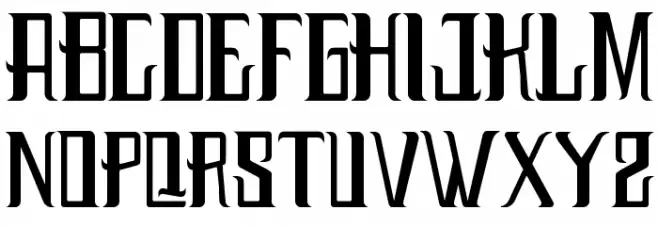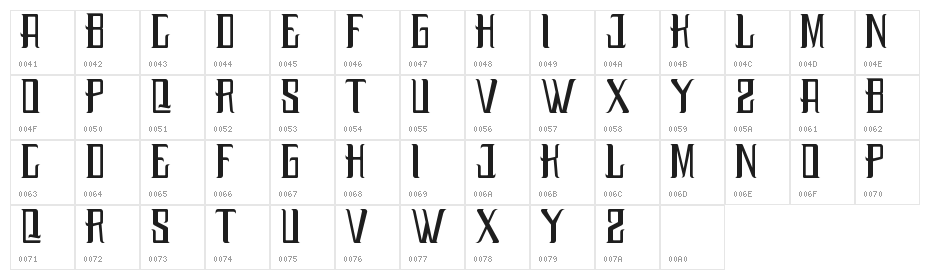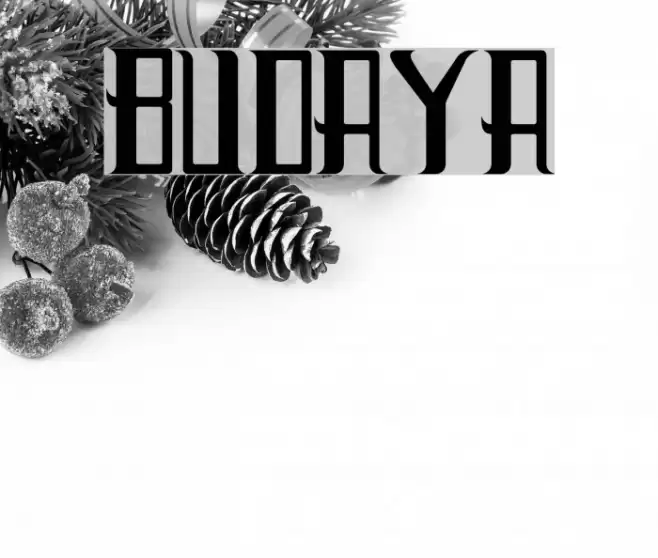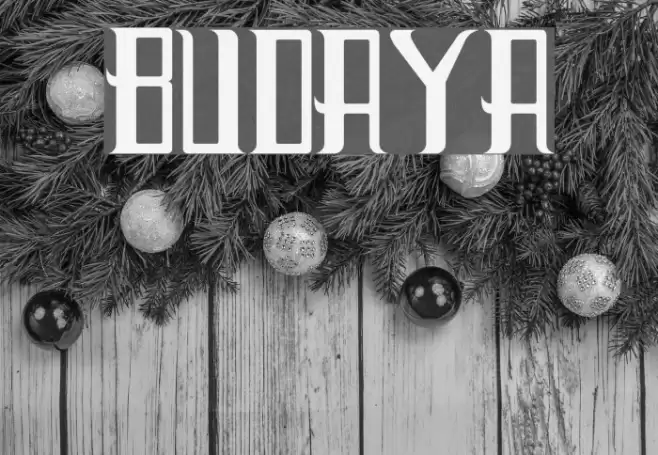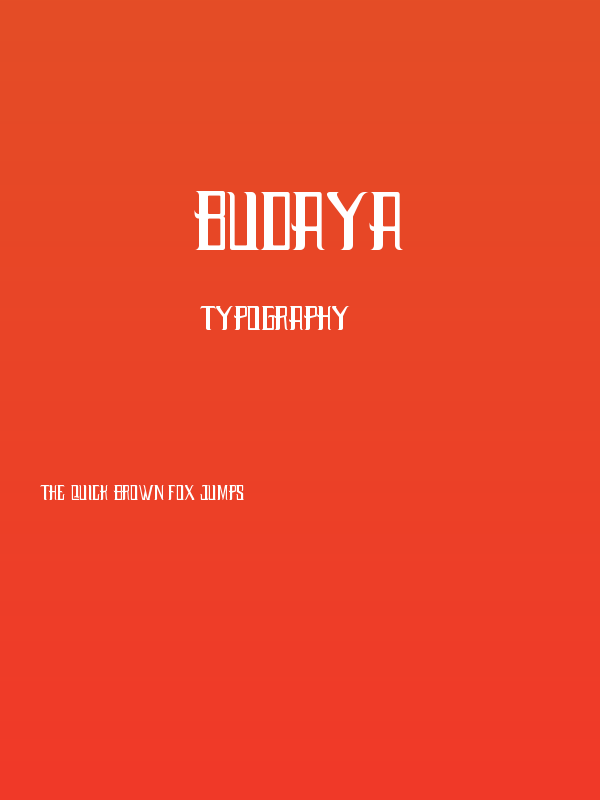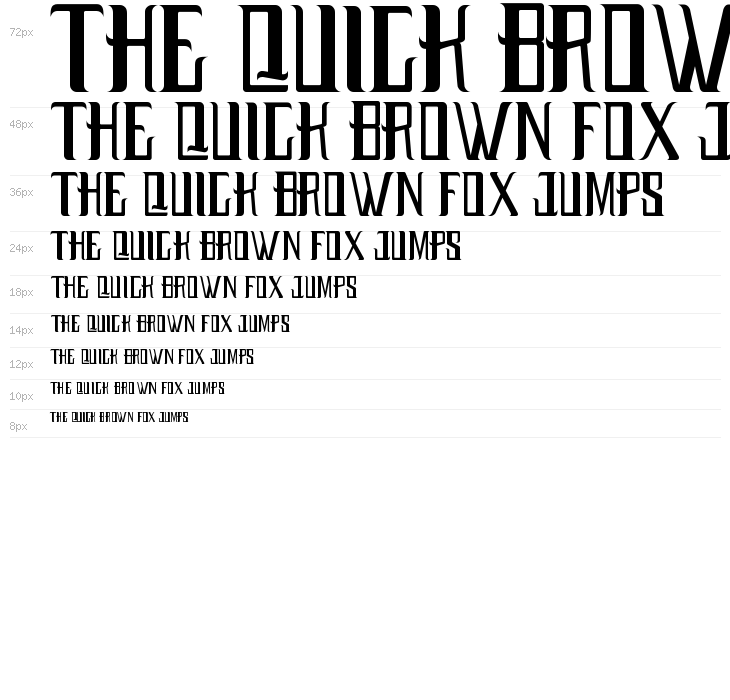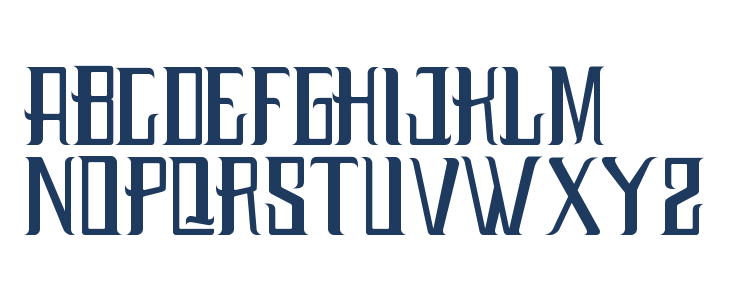
Budaya Font
Budaya Description
This font features a bold and striking design with a strong presence. The characters are tall and narrow, with sharp, angular edges that give it a modern and edgy feel. The uppercase letters are particularly distinctive, with unique flourishes and extensions that add to the font's decorative appeal. The overall style is reminiscent of Gothic or Blackletter influences, yet it maintains a contemporary twist. The font's high contrast between thick and thin strokes enhances its dramatic appearance, making it suitable for attention-grabbing headlines or logos.
| Proposed Projects | Ideal for branding, posters, album covers, and any project requiring a bold, dramatic typeface. |